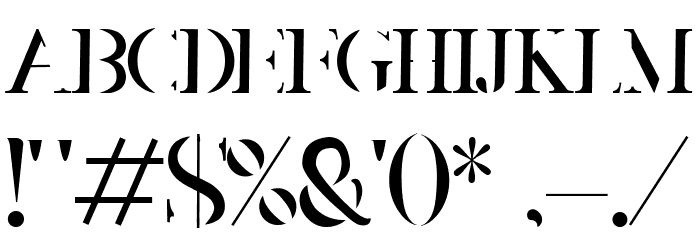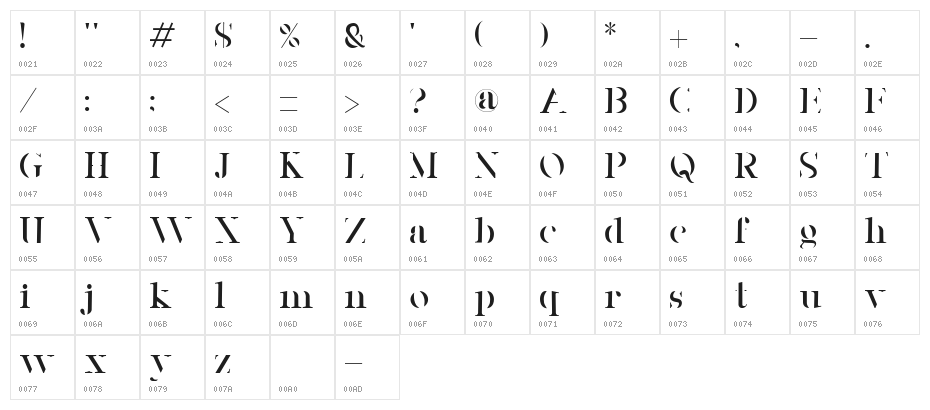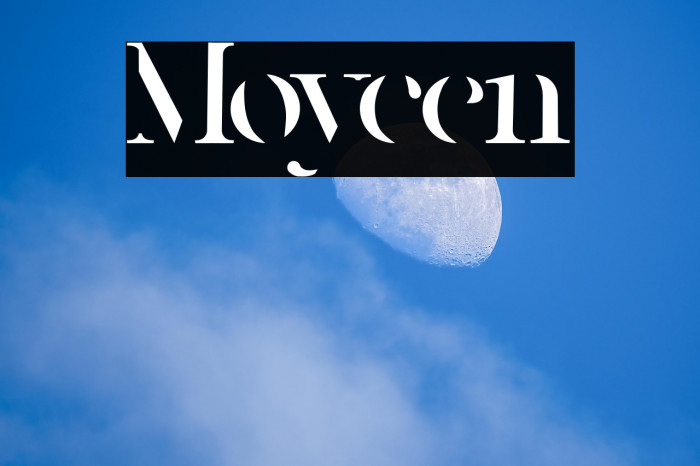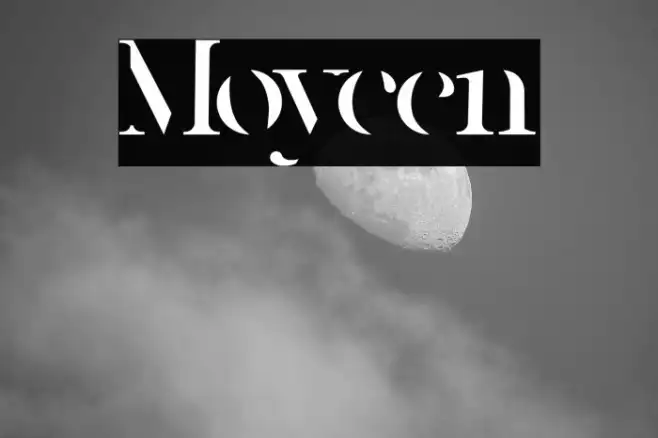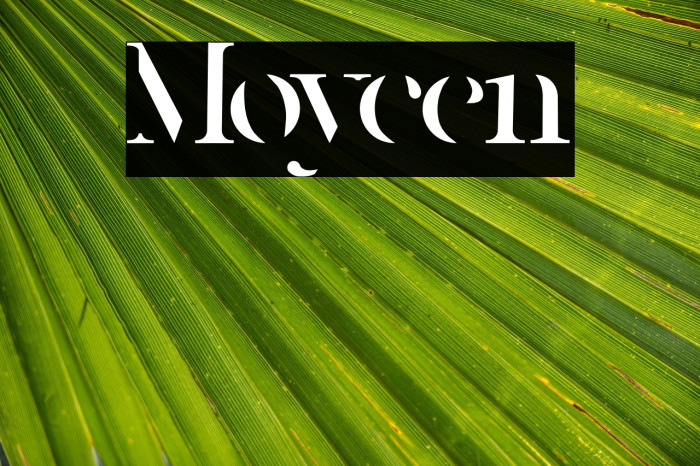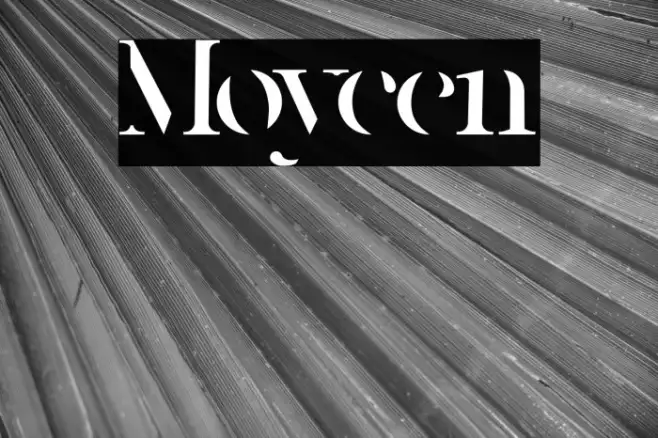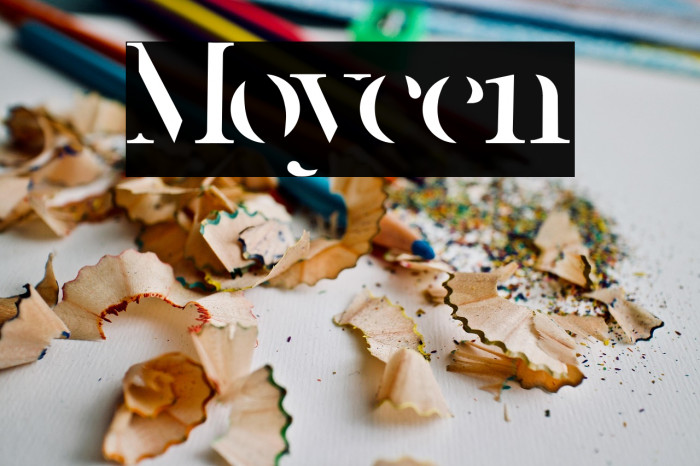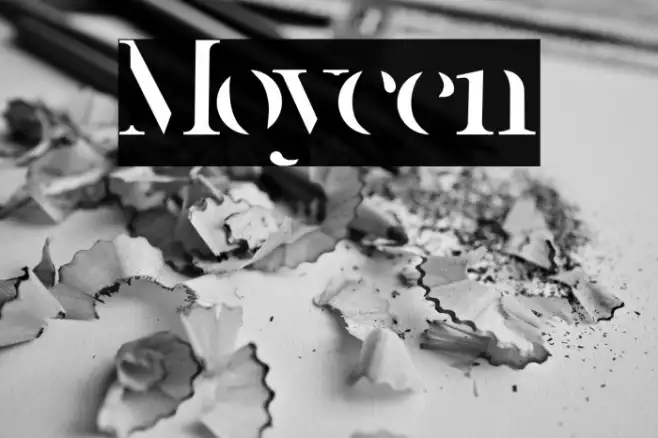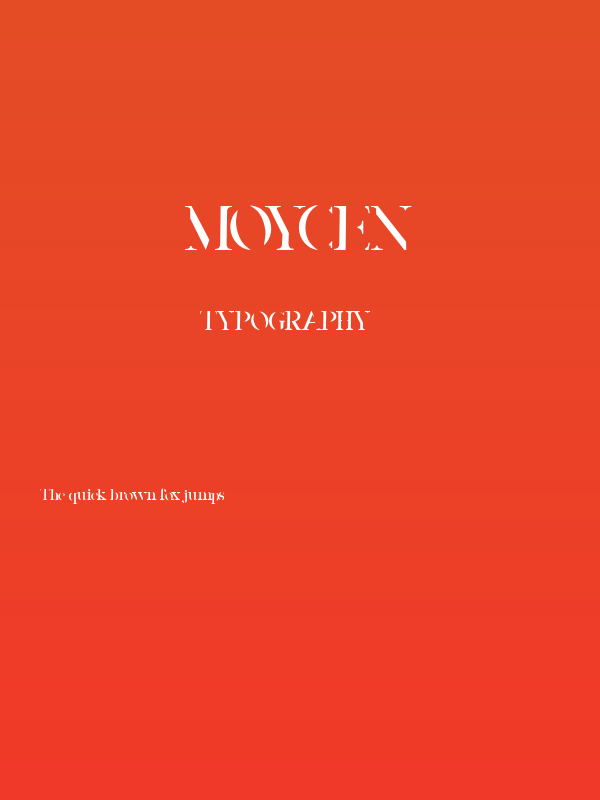
Moycen Font
Moycen Description
This font features a unique and artistic design with high contrast between thick and thin strokes, creating a striking visual impact. The letters are characterized by sharp, angular cuts and a stencil-like appearance, giving it a modern and edgy feel. The uppercase and lowercase letters maintain a consistent style, with the uppercase being more pronounced and bold. The numerals and special characters follow the same design principles, ensuring a cohesive look throughout. This font is ideal for projects that require a bold statement and a contemporary aesthetic.